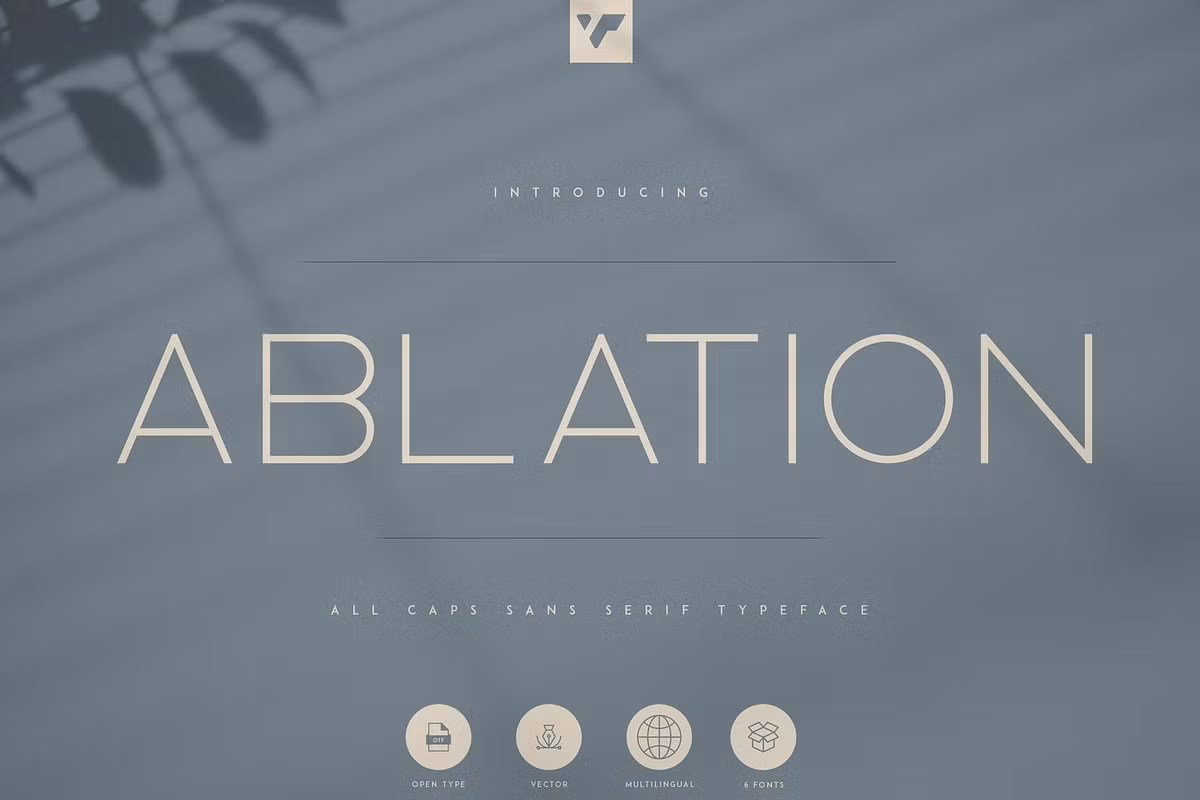
Ablation - Sans Serif Typeface Free Download
Ablation – Sans Serif Typeface Free Download
Ablation – Sans Serif Typeface Free Download is a sleek, modern typeface designed for clarity, precision, and visual impact. With its clean lines, minimalistic design, and geometric balance, Ablation is ideal for branding, web design, corporate presentations, packaging, and editorial layouts that require a strong, contemporary look.
This versatile sans serif font offers excellent legibility at all sizes and includes multiple weights for flexible use in both headlines and body text. Ablation – Sans Serif Typeface Free Download delivers a professional tone that works seamlessly across both digital and print mediums.